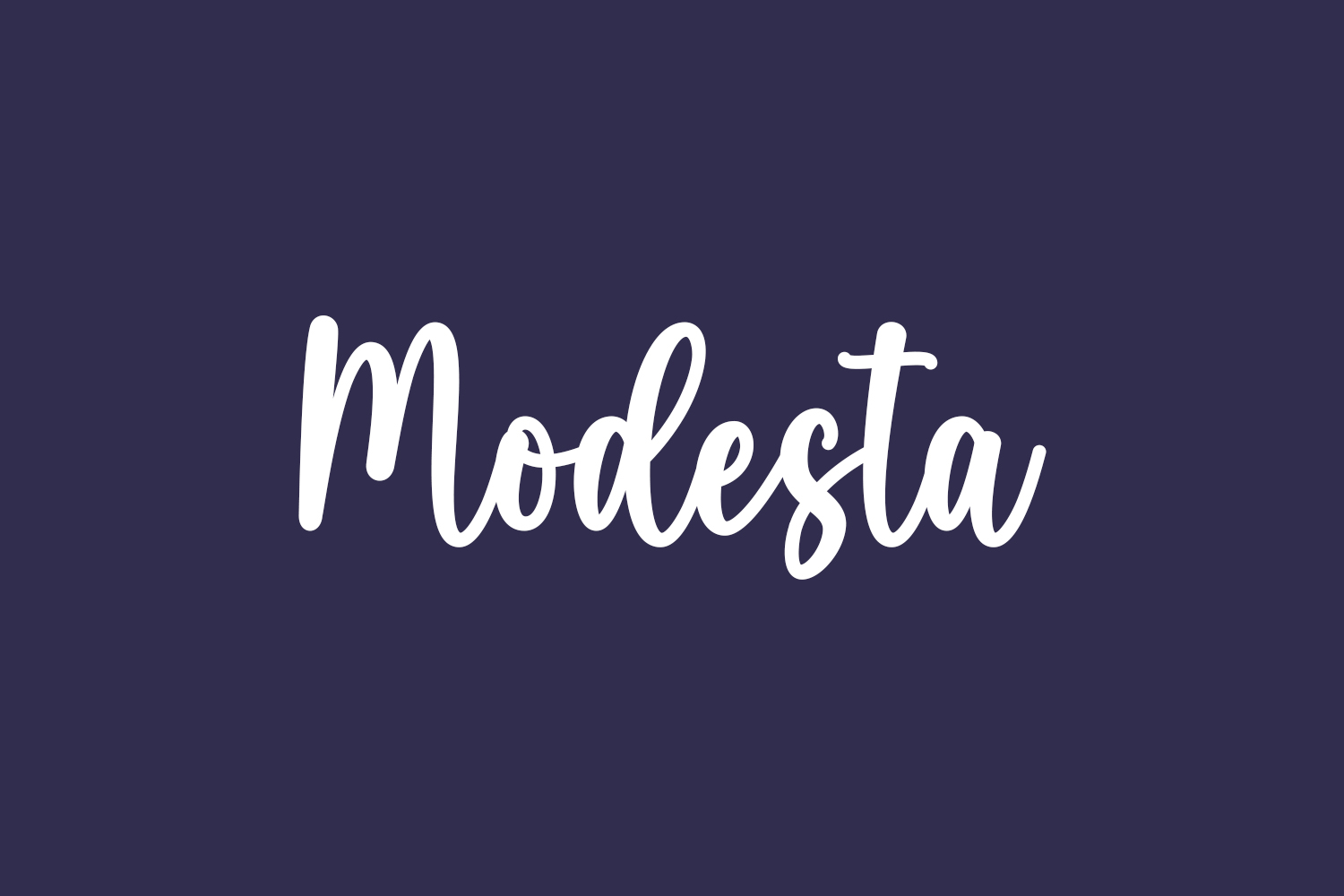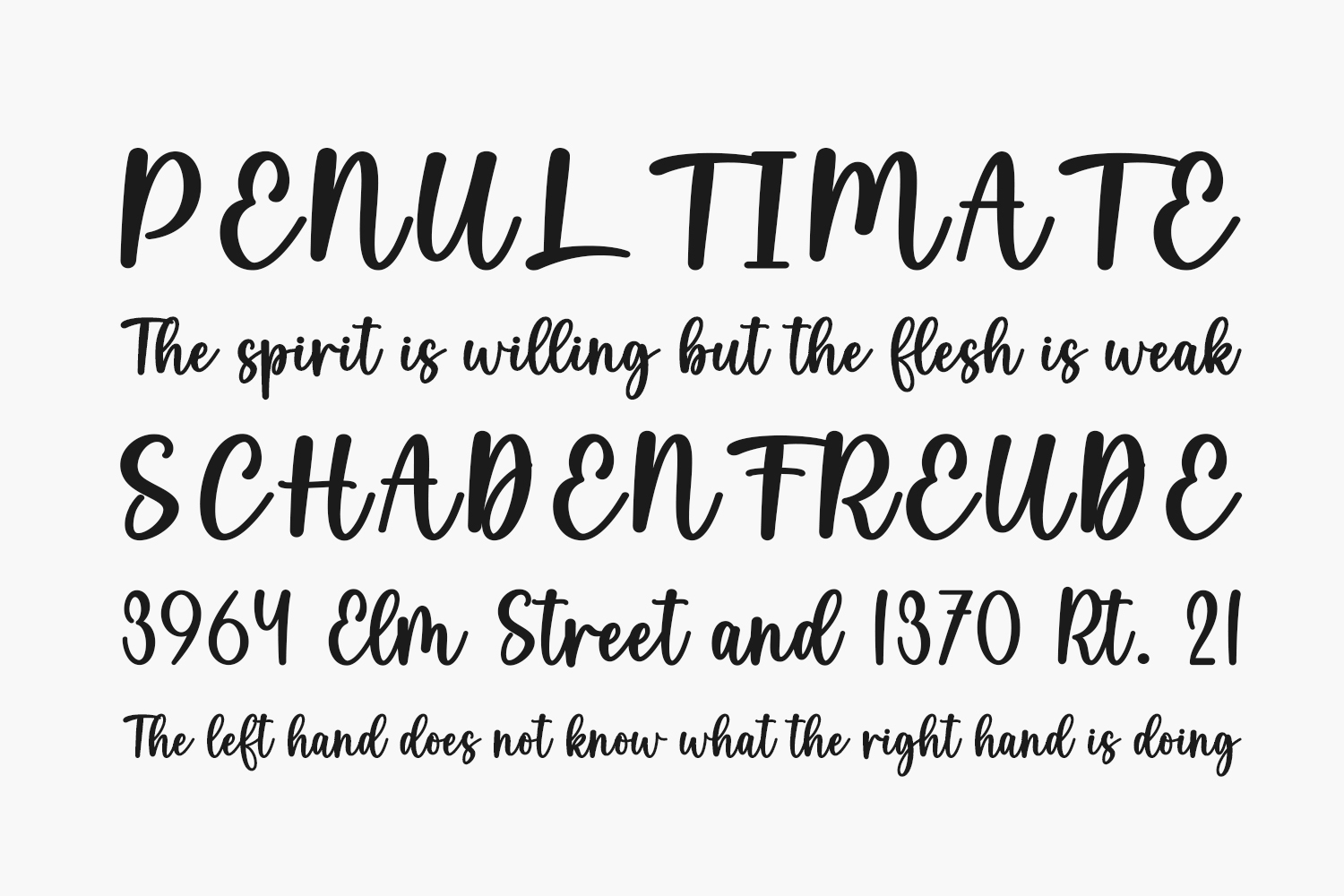
Modesta Free Font is a flowing handwritten font, described by an elegant touch, perfect for your favorite projects. Modesta Free Font was designed by Wahyu Studio and is free for personal use only. Please purchase the full version for commercial use.